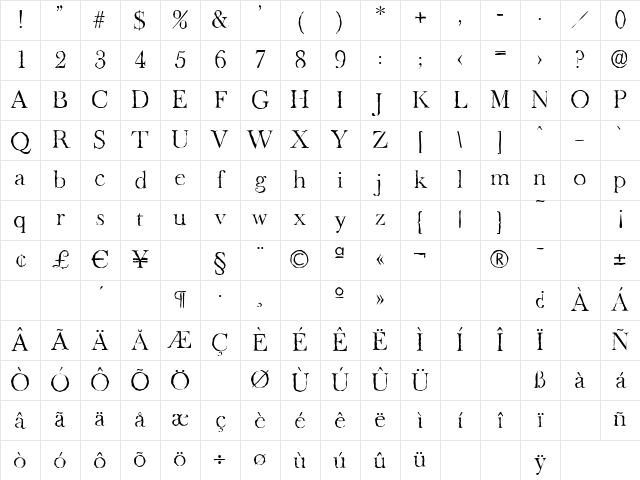
BaskerOldAntique-Light Regular Free Font
BaskerOldAntique-Light Regular
Design Context for BaskerOldAntique-Light
BaskerOldAntique-Light wears its vintage influences proudly, with letterforms that recall mid-century signage, classic packaging, and nostalgia-driven design. Its slender proportions lend an understated elegance to any composition.
Font Pairing: Combine BaskerOldAntique-Light with a simple slab or neutral sans - period-accurate companions reinforce the vintage feel without competing for attention.
Pro Tip: Lean into BaskerOldAntique-Light's period character by pairing it with aged paper textures, muted colour palettes, and vintage illustration styles.